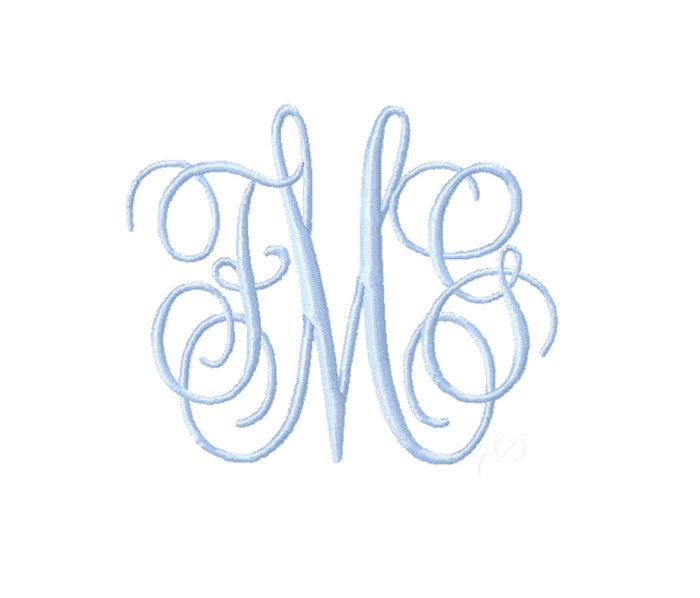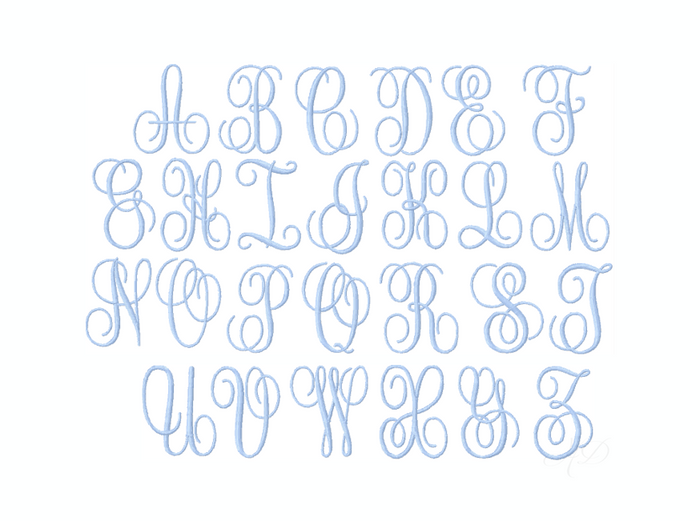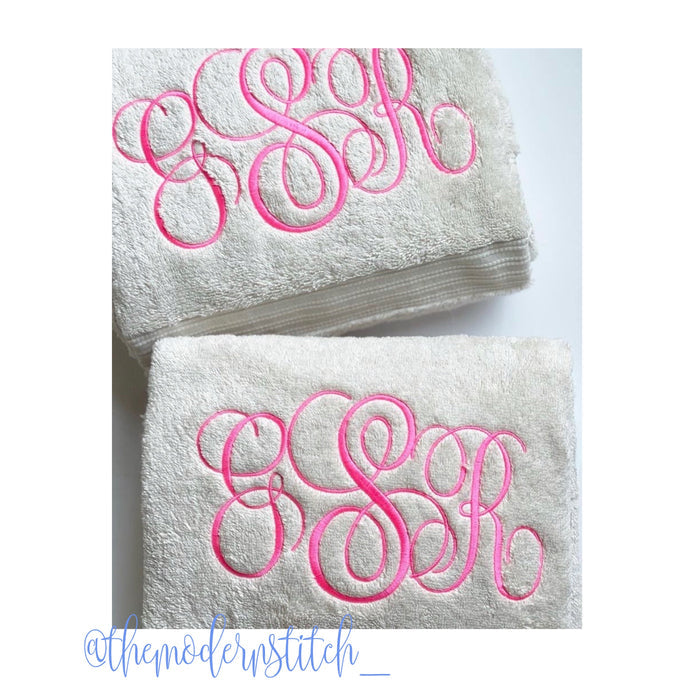
X-Large 6x10 Kathryn Satin Stitch Hoop Embroidery Font
Introducing the X-Large 6x10 Kathryn Satin Stitch Embroidery Font, designed for crafters who love to create stunning monograms. This versatile font package includes 26 letters in a luxurious script style, ideal for crafting beautiful three-letter monograms. Tailored specifically for a 6x10 hoop or larger, this font offers flexibility, although it won't fit in a 4x4 hoop. Certain sizes are also compatible with a 5x7 hoop, except for the 7" and 7.5" sizes.